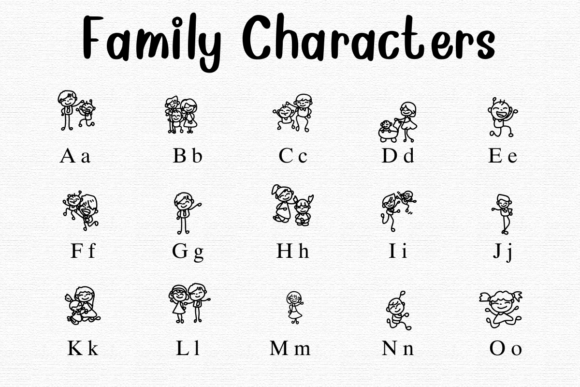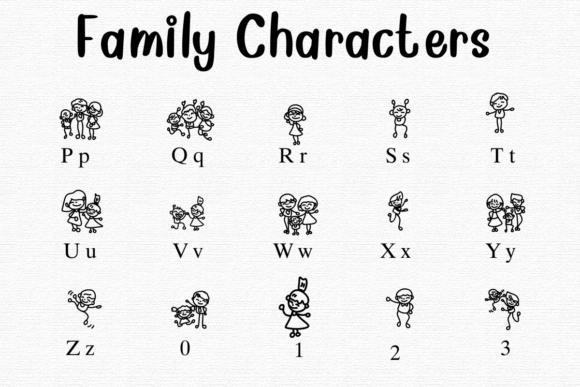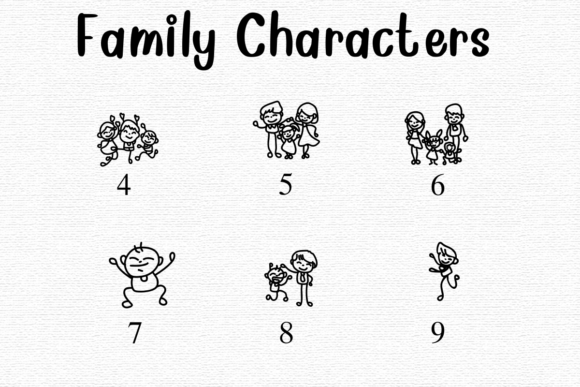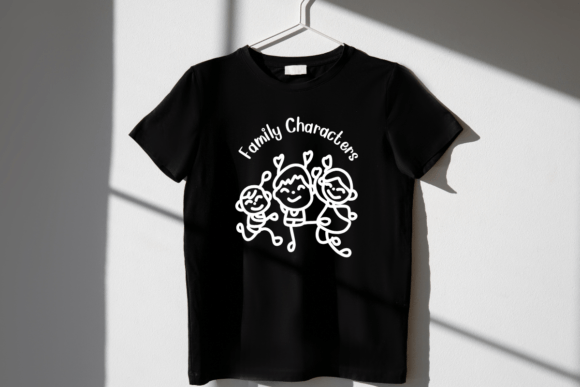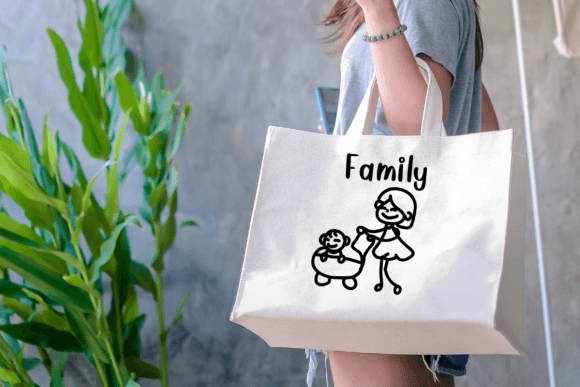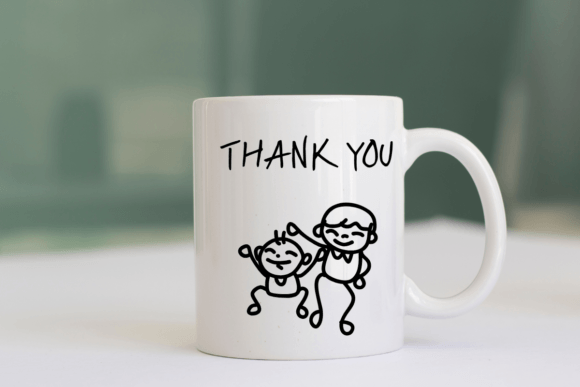
Introducing Family Characters Font: Add a Playful Touch to Your Designs
Are you looking for a unique and charming way to add a personal touch to your creative projects? Look no further than the Family Characters Font, a fun dingbat font that features adorable images of family members and cute family-related symbols. This delightful font is perfect for designers, crafters, and anyone looking to add a playful touch to their work.
What is Family Characters Font?
Family Characters Font is a dingbat font that replaces traditional characters with illustrations of family members and symbols. Each character in the font is a unique and charming illustration, making it perfect for adding a personal touch to projects like greeting cards, scrapbooks, and invitations. The font features a wide range of family-themed images, from happy parents and kids to adorable pets and family-related icons.
Key Features of Family Characters Font
- Adorable illustrations: Each character in the font is a unique and charming illustration, making it perfect for adding a playful touch to your designs.
- Wide range of family-themed images: The font features a wide range of family-themed images, from happy parents and kids to adorable pets and family-related icons.
- Perfect for creative projects: Family Characters Font is perfect for adding a personal touch to projects like greeting cards, scrapbooks, and invitations.
Uses for Family Characters Font
Family Characters Font is perfect for a wide range of creative projects, including:
- Greeting cards: Add a personal touch to your greeting cards with adorable illustrations of family members and symbols.
- Scrapbooking: Use the font to add cute and playful elements to your scrapbook pages.
- Invitations: Make your invitations stand out with unique and charming illustrations of family members and symbols.
- Social media graphics: Use the font to add a playful touch to your social media graphics and posts.
Benefits of Using Family Characters Font
Using Family Characters Font in your designs offers a range of benefits, including:
- Unique and personalized designs: The font allows you to add a personal touch to your designs, making them stand out from the crowd.
- Time-saving: The font saves you time and effort, as you can quickly and easily add adorable illustrations to your designs.
- Fun and playful designs: The font allows you to create fun and playful designs that are perfect for family-themed projects.
Tips for Using Family Characters Font
Here are some tips for using Family Characters Font in your designs:
- Experiment with different colors: Try out different colors and combinations to add depth and interest to your designs.
- Mix and match illustrations: Combine different illustrations to create unique and personalized designs.
- Use the font to tell a story: Use the font to tell a story or convey a message, making your designs more engaging and effective.
- Have fun: Most importantly, have fun and be creative with the font!
Family Characters Font is a fun and playful dingbat font that features adorable illustrations of family members and symbols. Perfect for designers, crafters, and anyone looking to add a personal touch to their creative projects. With its wide range of family-themed images, ease of use, and unique illustrations, this font is sure to become a favorite in your design arsenal. So why wait? Download Family Characters Font today and start adding a playful touch to your designs!